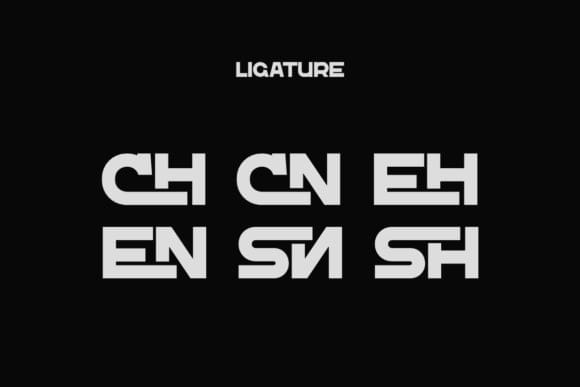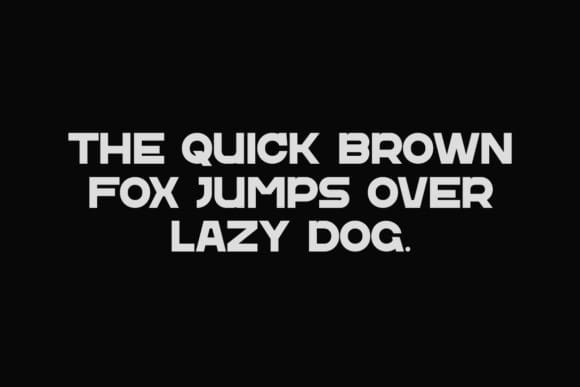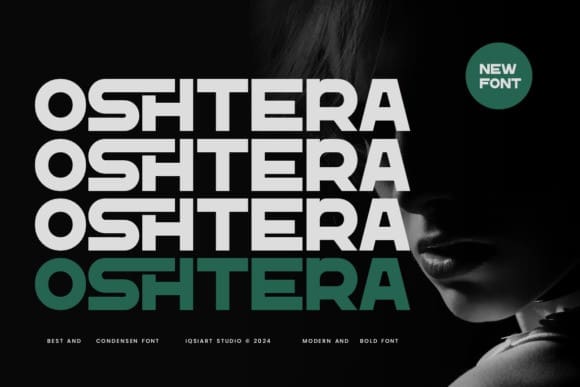
Oshtera Font
Oshtera Font is an elegant and bold sans serif font. Fall in love with its incredibly versatile style and use it to create gorgeous wedding invitations, beautiful stationary art, eye-catching social media posts, and much more!